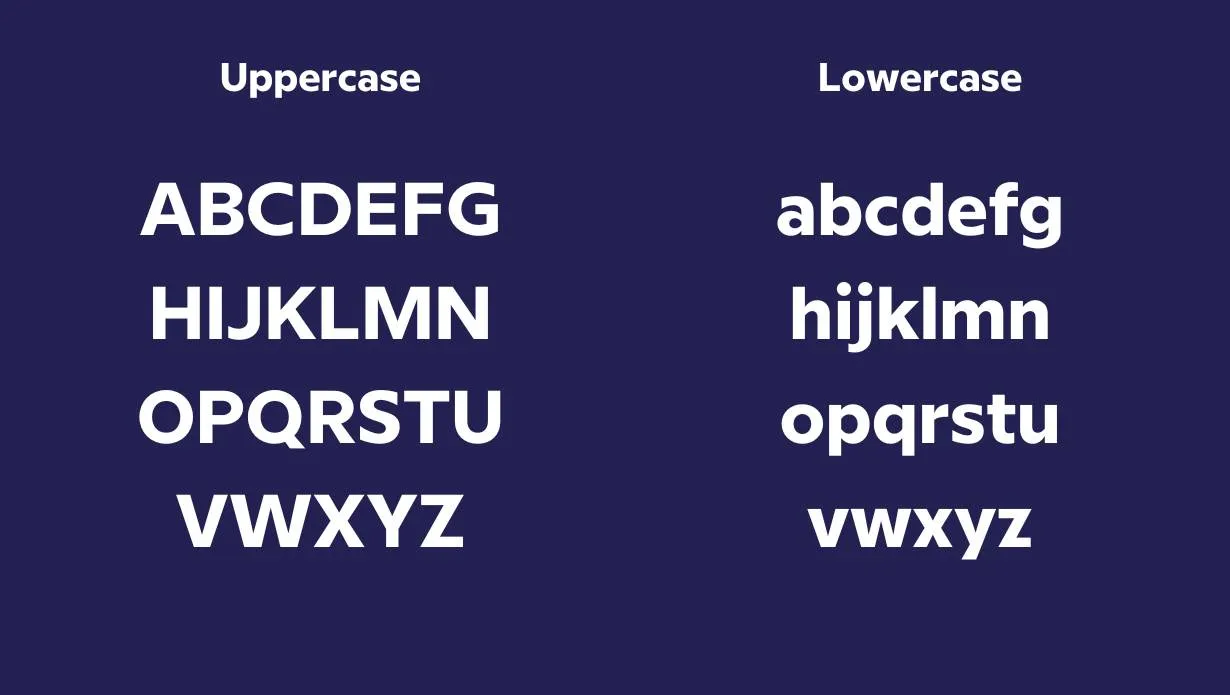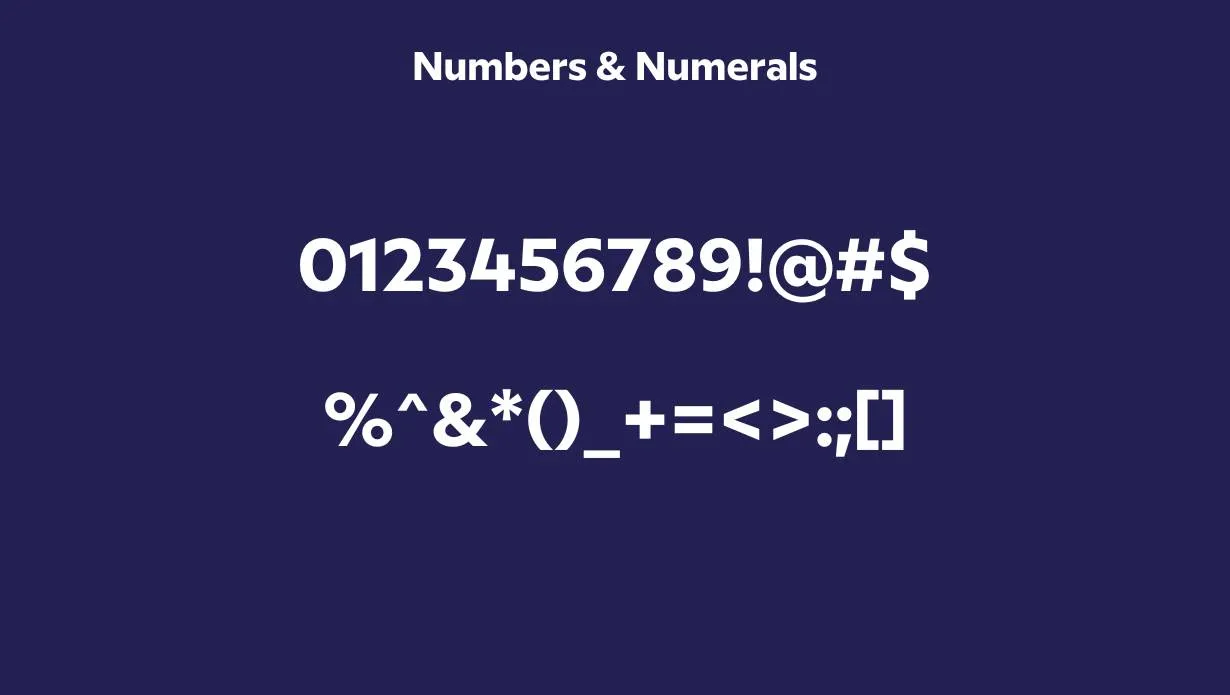
Milliard Font is a unique and stylish typeface that comes from the Sans-Serif font family. This creative typeface is very much inspired by the grotesk typefaces that were created in the twentieth century.
This typeface contains a large character set that includes uppercase alphabets, numerals, punctuation, special characters, and lowercase alphabets.
Milliard Font Info
| Name | Milliard Font |
| Designer | Rene Bieder |
- Milliard Hairline
- Milliard Black Italic
- Milliard Hairline Italic
- Milliard Thin
- Milliard Heavy Italic
- Milliard Thin Italic
- Milliard Semi Bold
- Milliard Extra Bold Italic
- Milliard Extra Light
- Milliard Extra Bold
- Milliard Extra Light Italic
- Milliard Bold Italic
- Milliard Medium
- Milliard Bold
- Milliard Black
- Milliard Medium Italic
- Milliard Heavy
- Milliard Semi Bold Italic